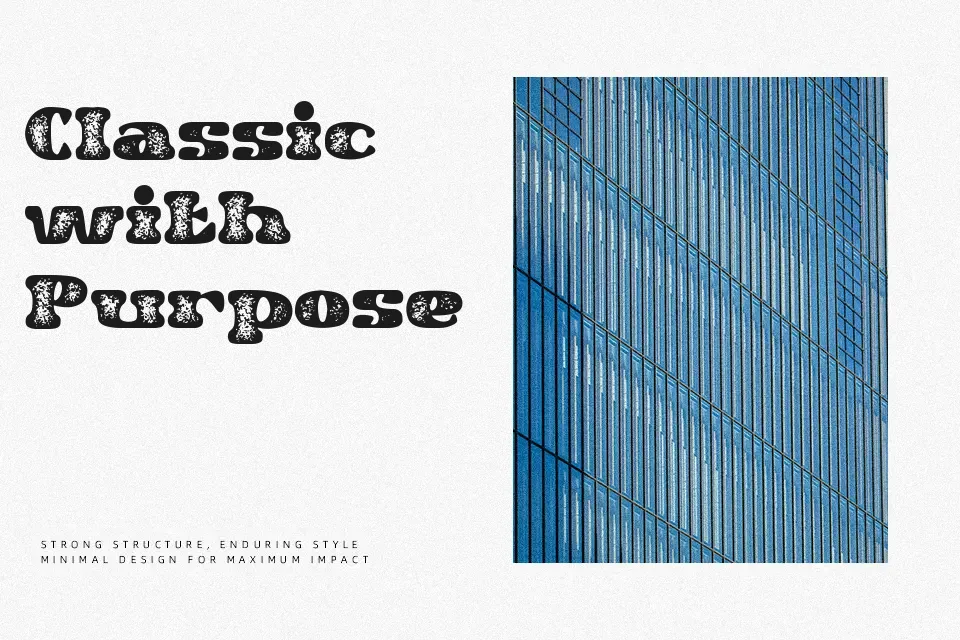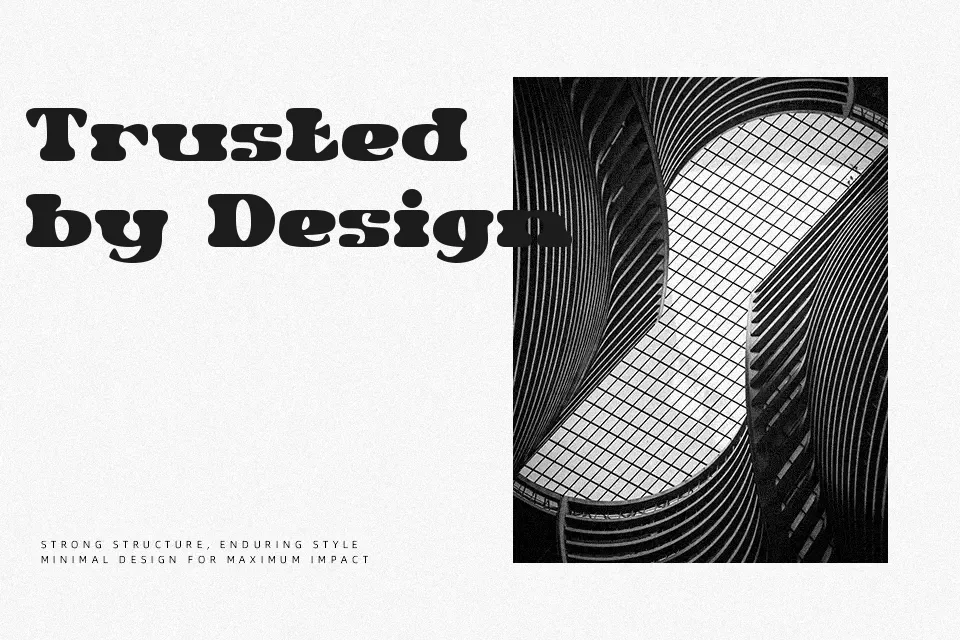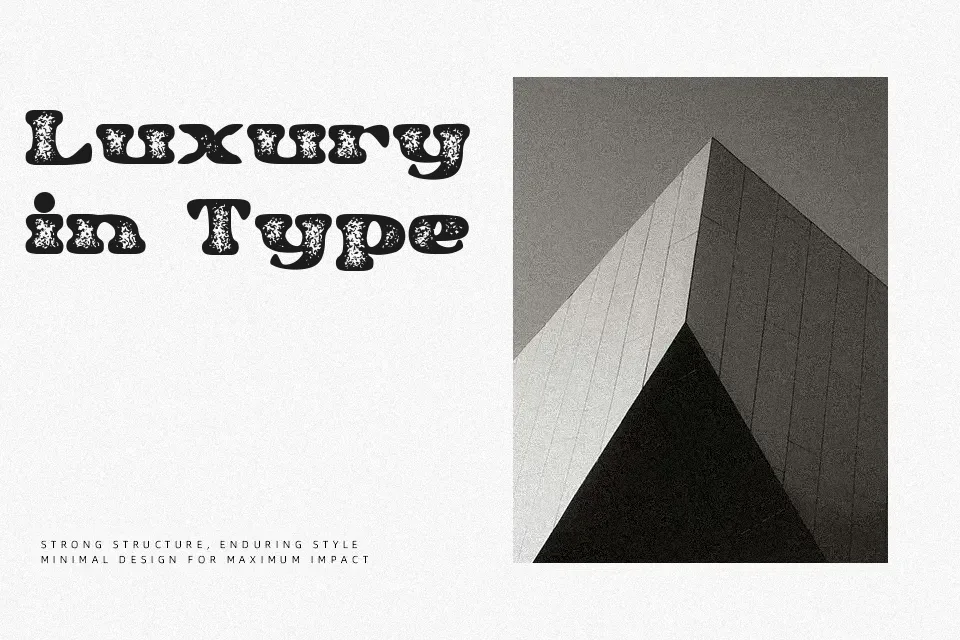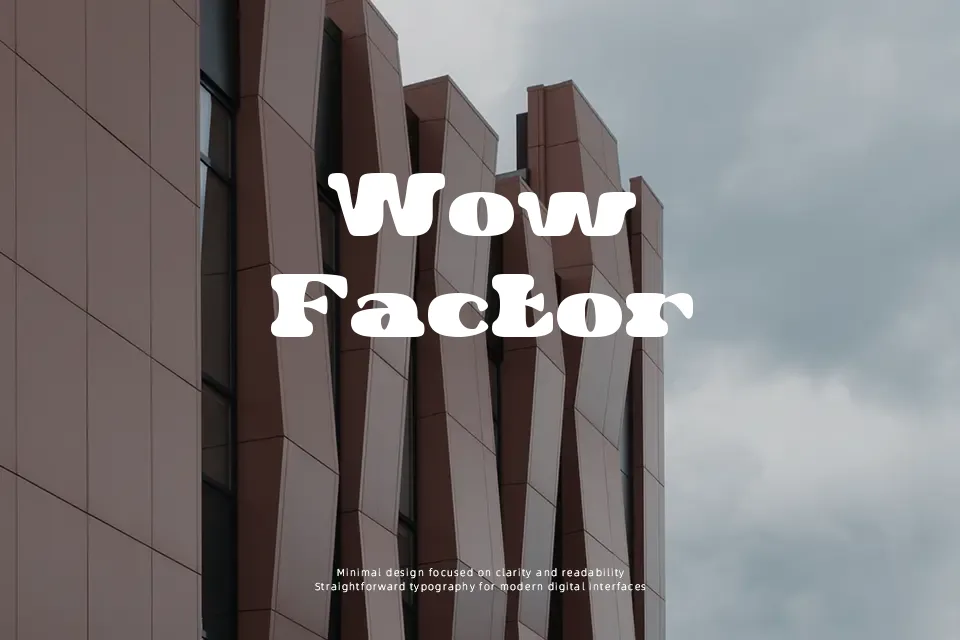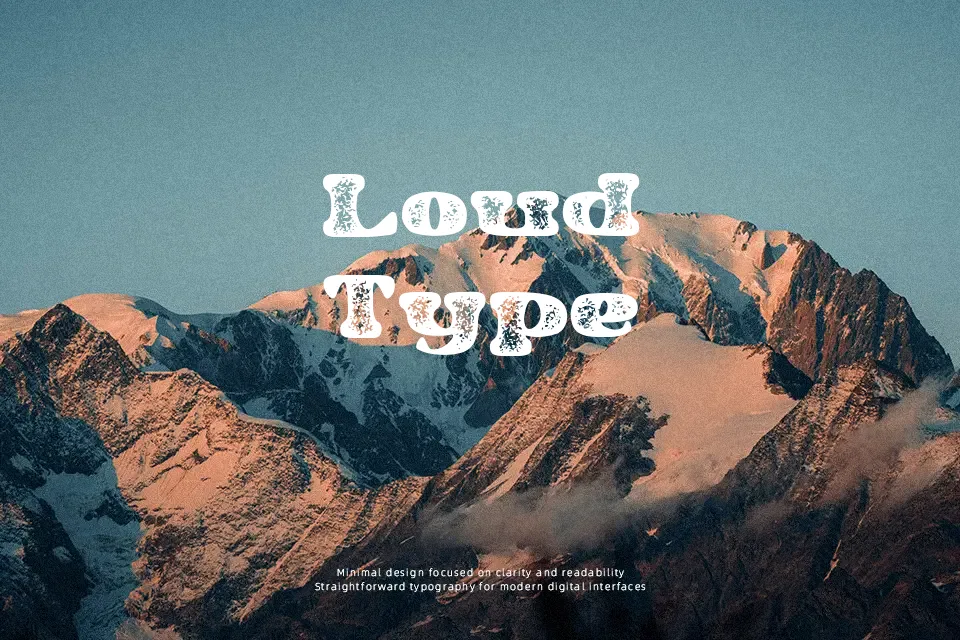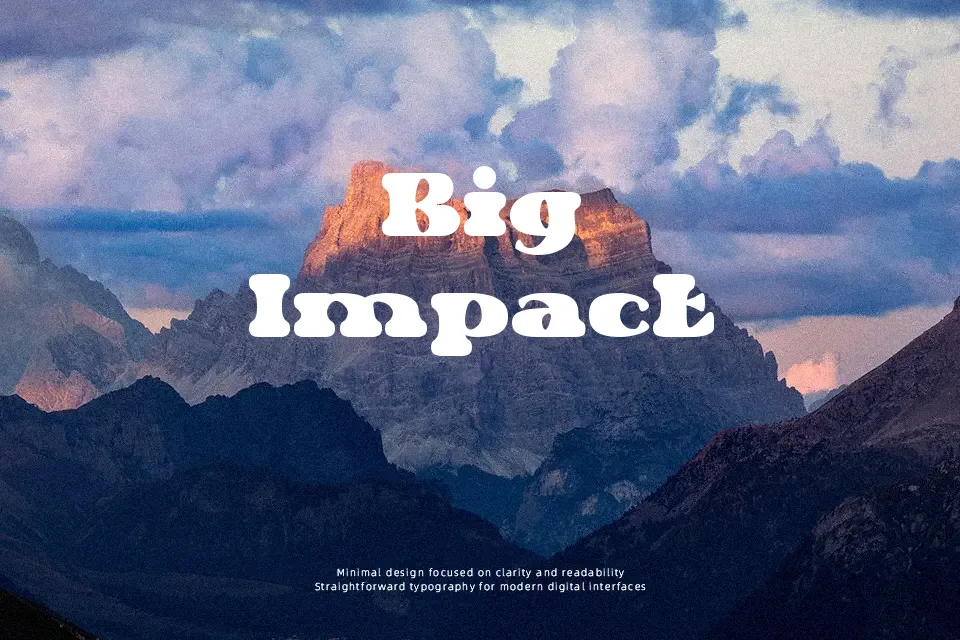
Antia Notario Font
Antia Notario combines chunky serif letterforms with a modern vintage twist, featuring bold strokes, decorative terminals, and an optional eroded texture that adds a worn, nostalgic feel. The spacing is relatively tight, giving headlines a compact, poster-like rhythm that reads loudly at larger sizes. It works well for retro branding, record covers, café signage, and social media graphics where you need a strong, stylized focal headline. However, its decorative shapes and heavy weight make it unsuitable for long paragraphs or small text, and using it across entire documents can quickly feel overwhelming. Choose it when you want personality in a few key words, not for dense editorial layouts.
retro poster headlines
vintage-inspired branding logos
album or book cover titles
restaurant or café menu section headers
formal corporate reports
small UI labels or body copy
highly minimal or neutral branding systems